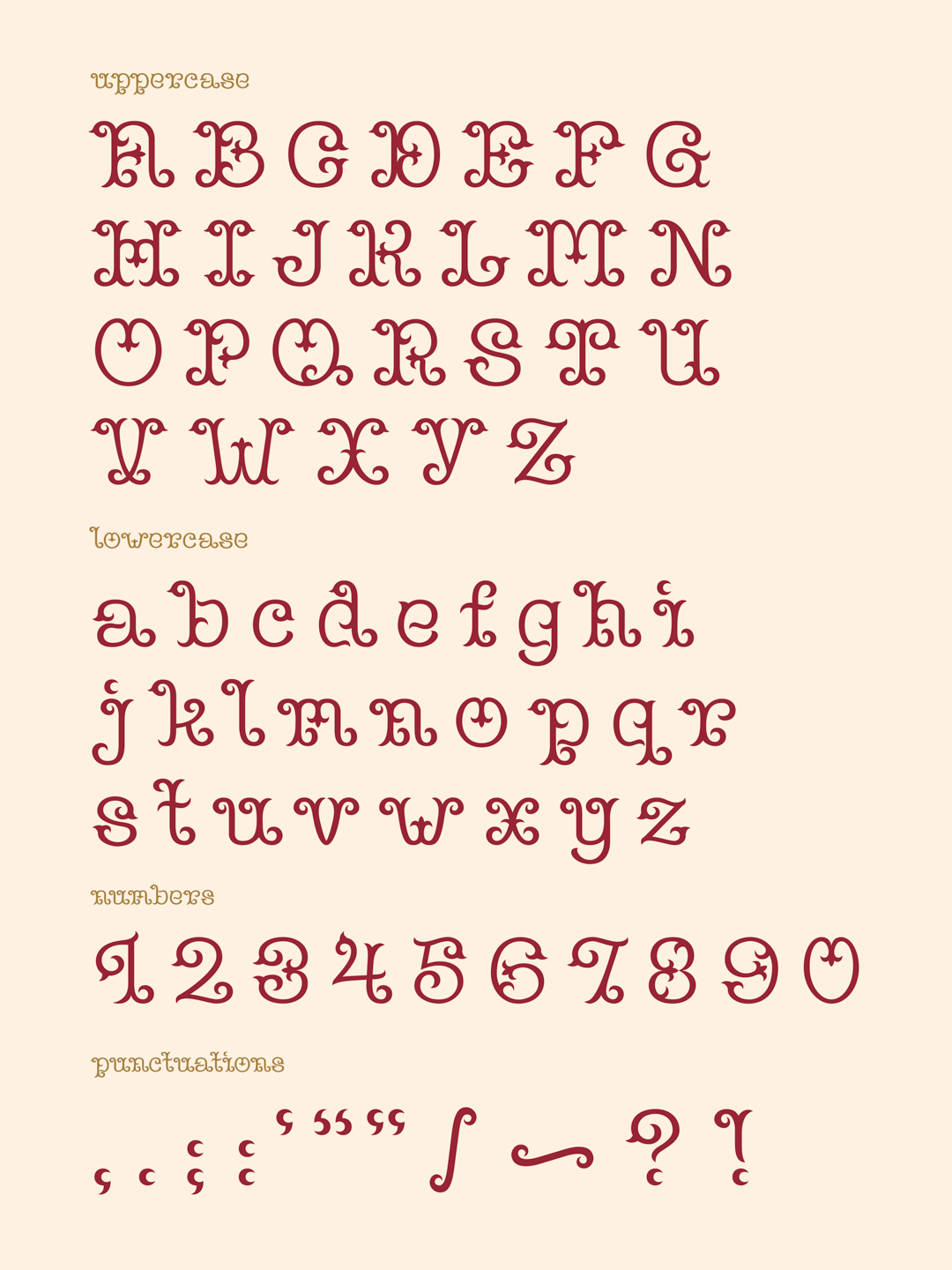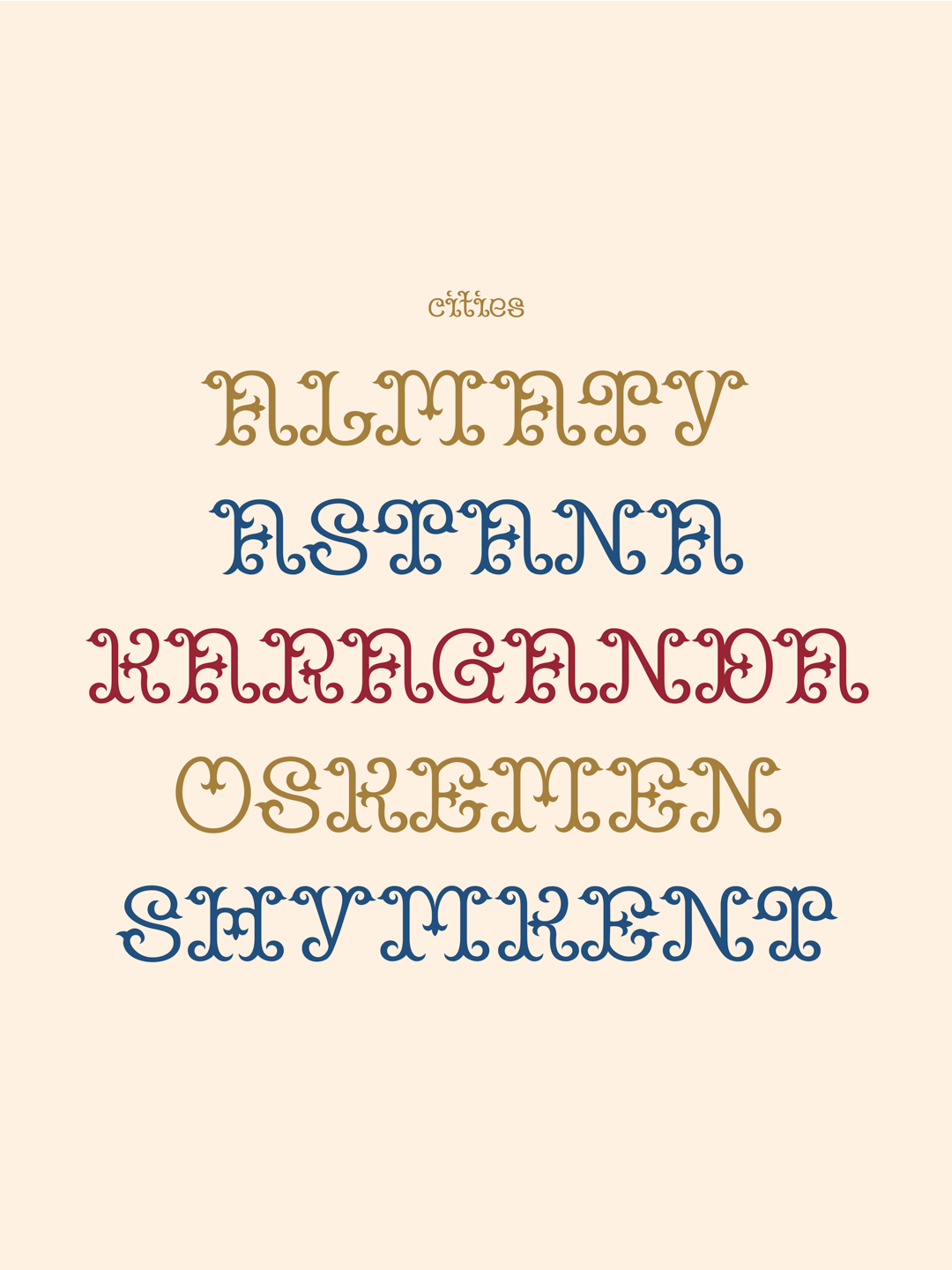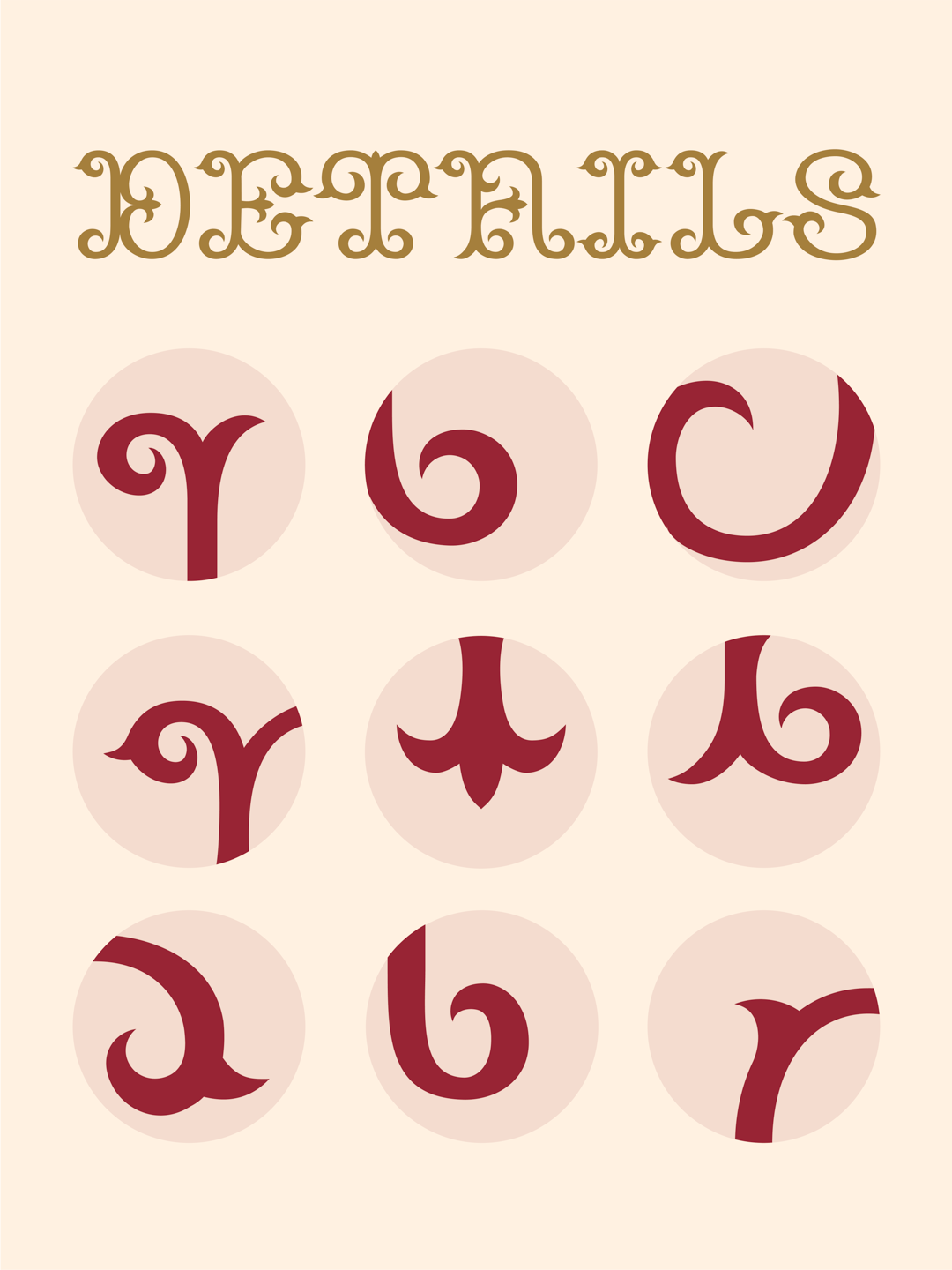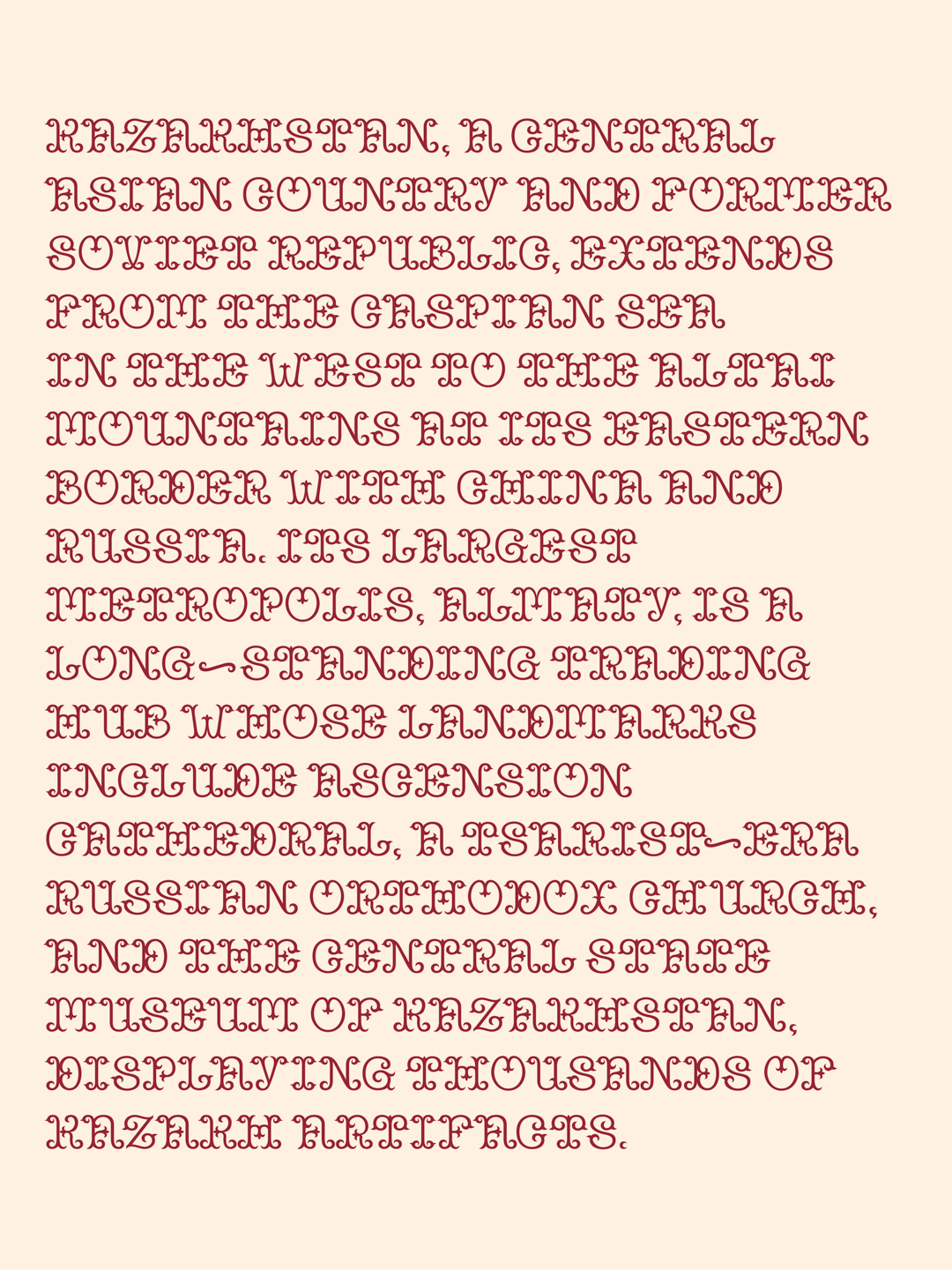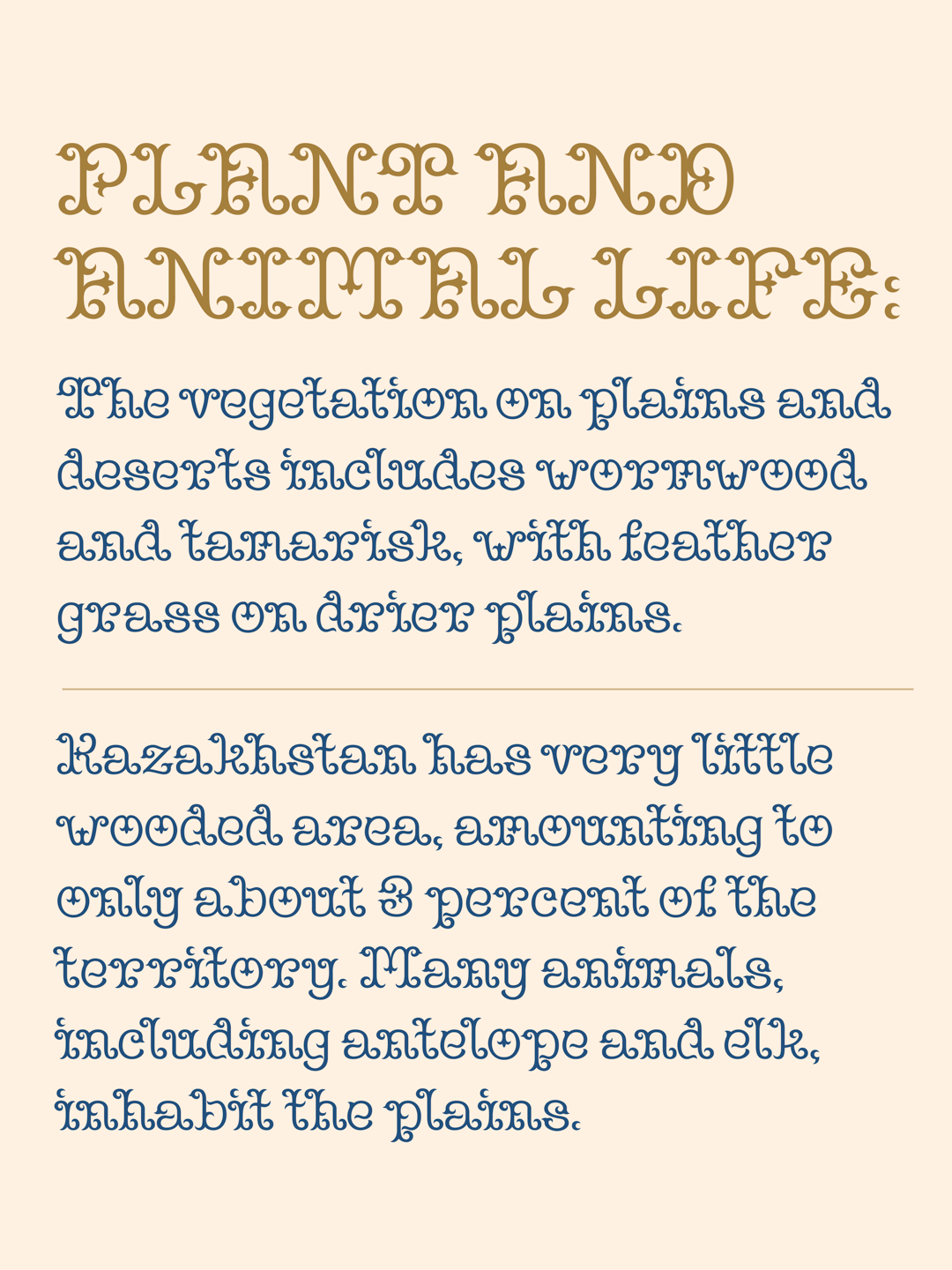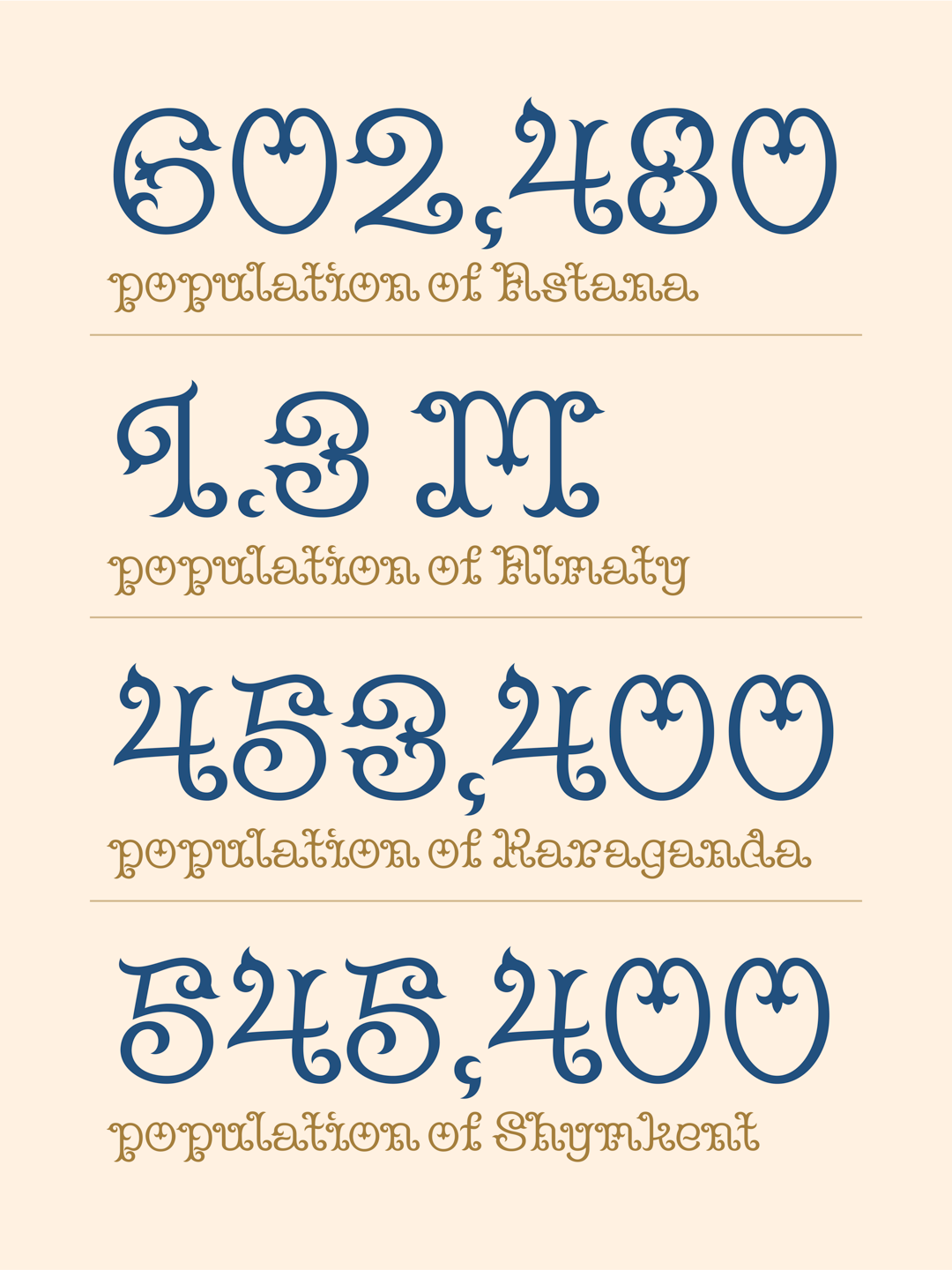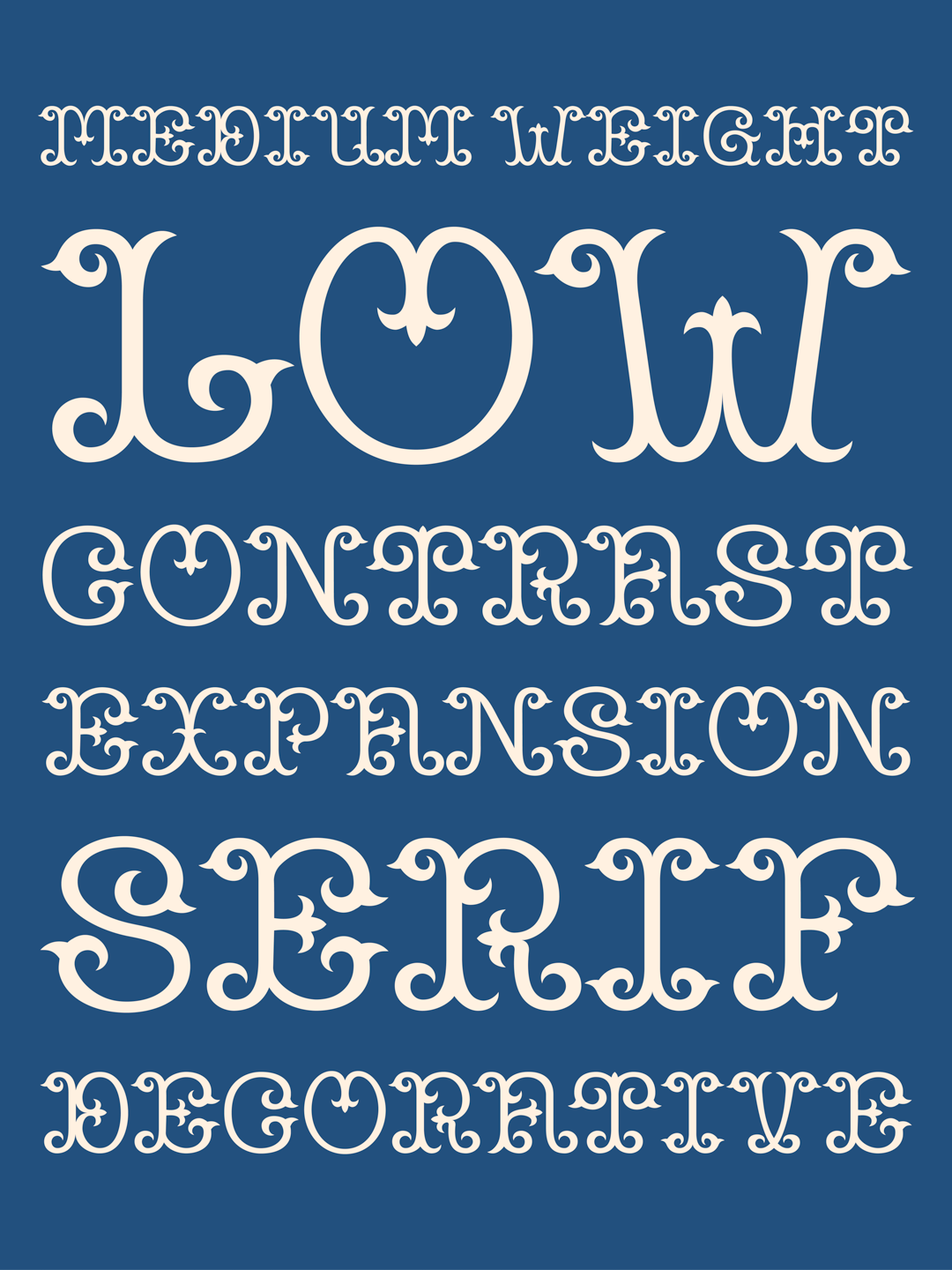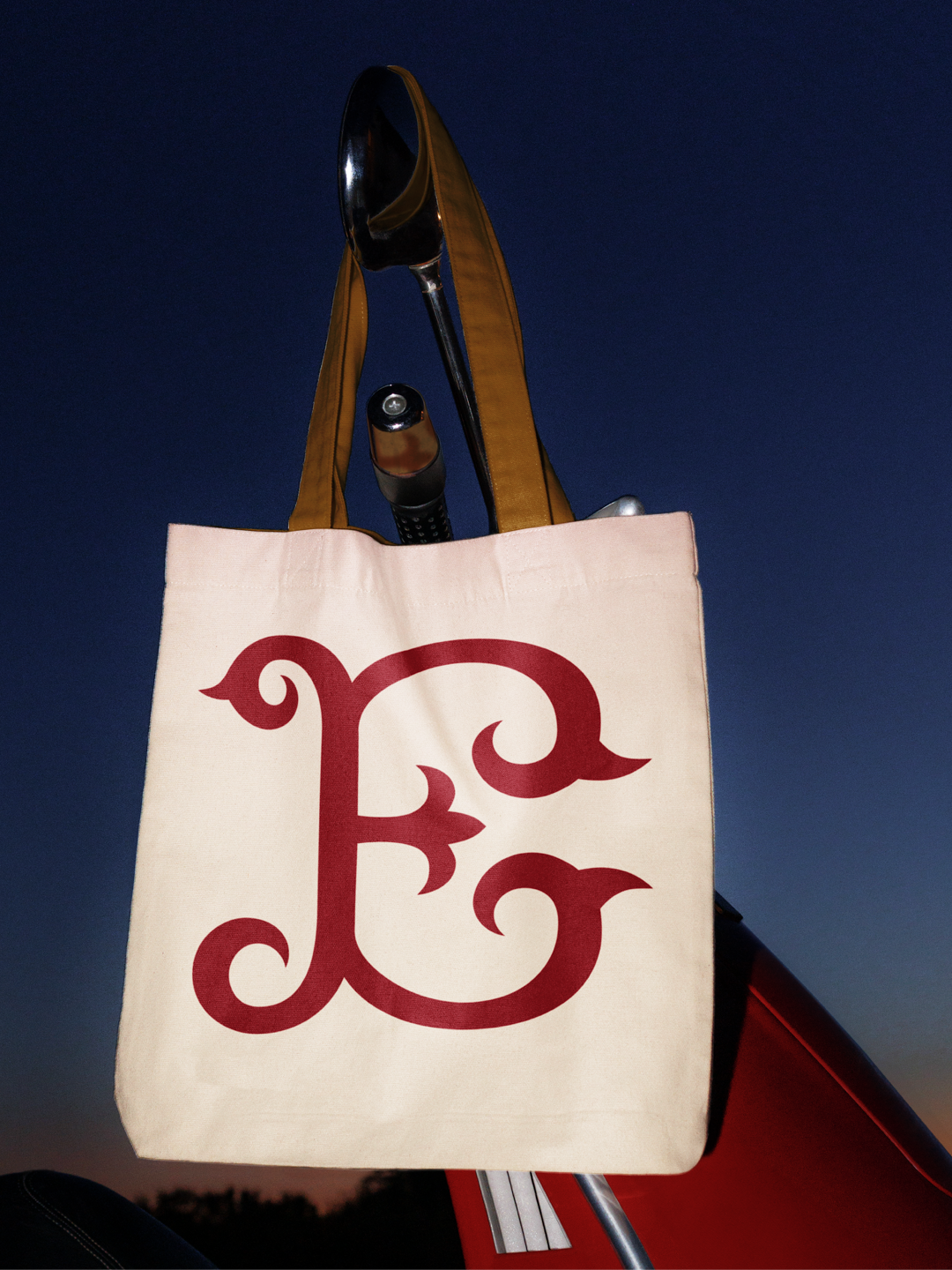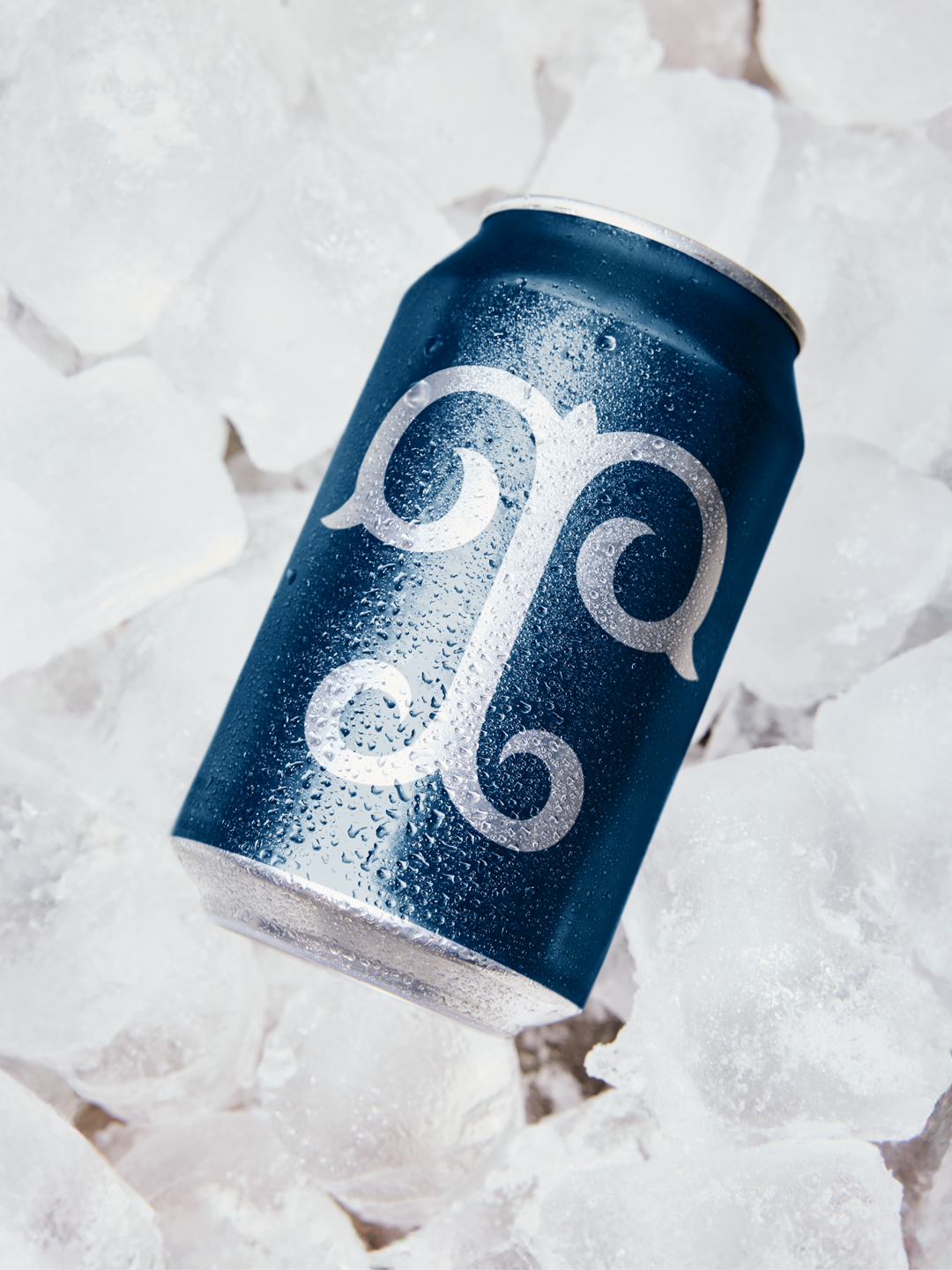
Tomiris Serif is a modern typeface that integrates traditional Kazakh motifs (oyu) into its decorative flourishes. It serves as a cultural ambassador, blending geometric elegance with functional design for a global audience.
Starting with limited experience, I drew inspiration from my peers and digital type trends to fuel my process. Through constant sketching and iterative refinement, I transformed these raw concepts into a polished, cohesive typeface.